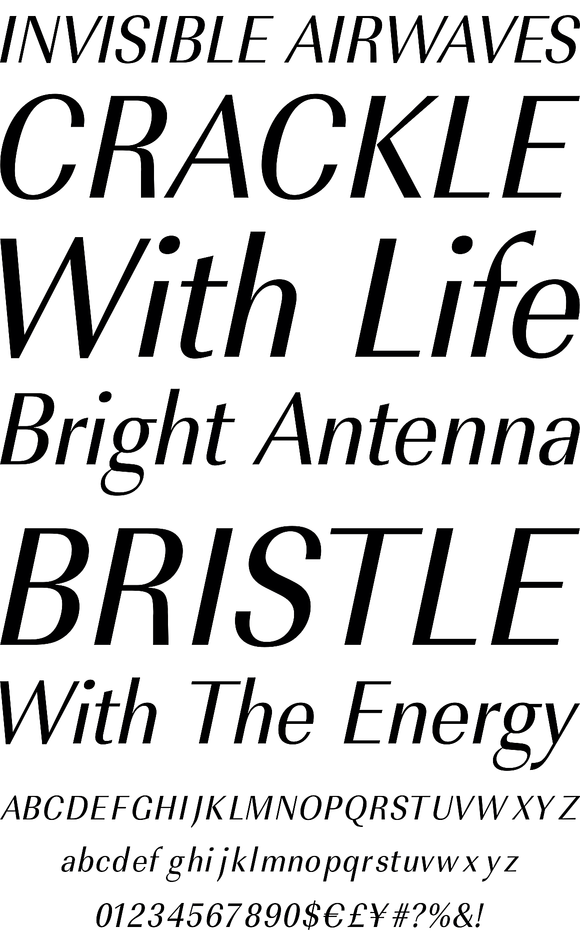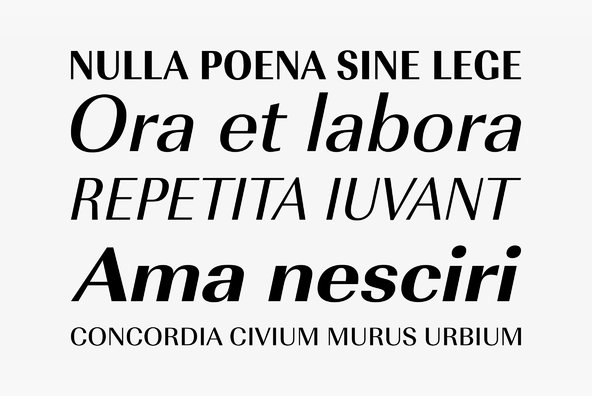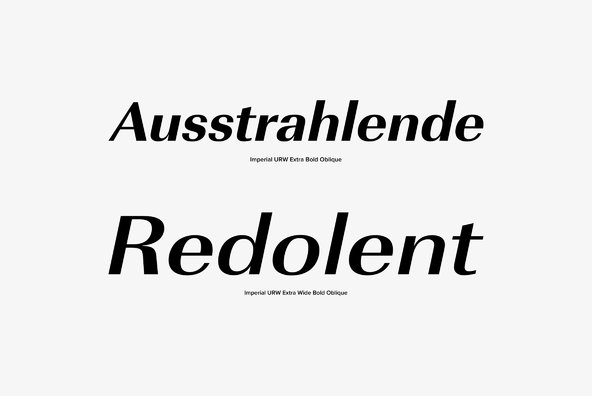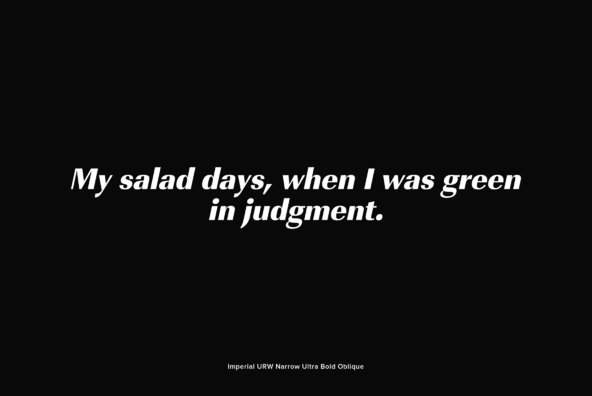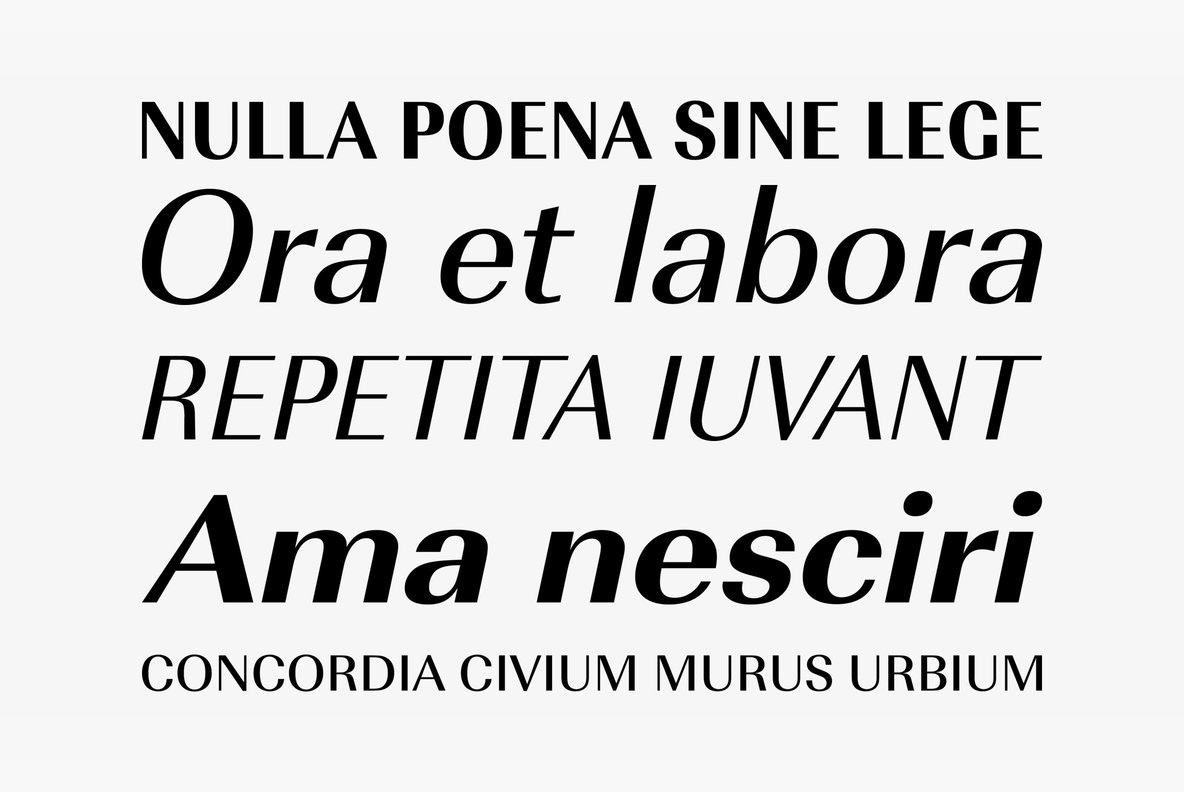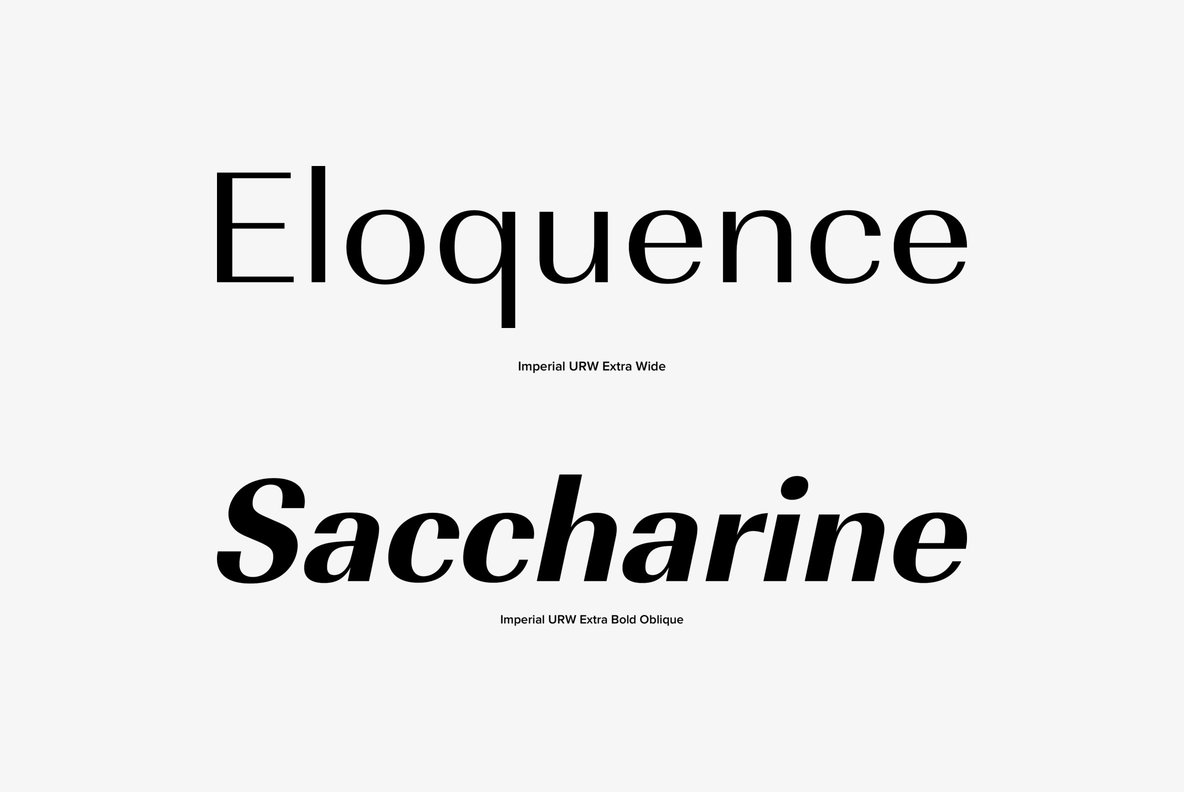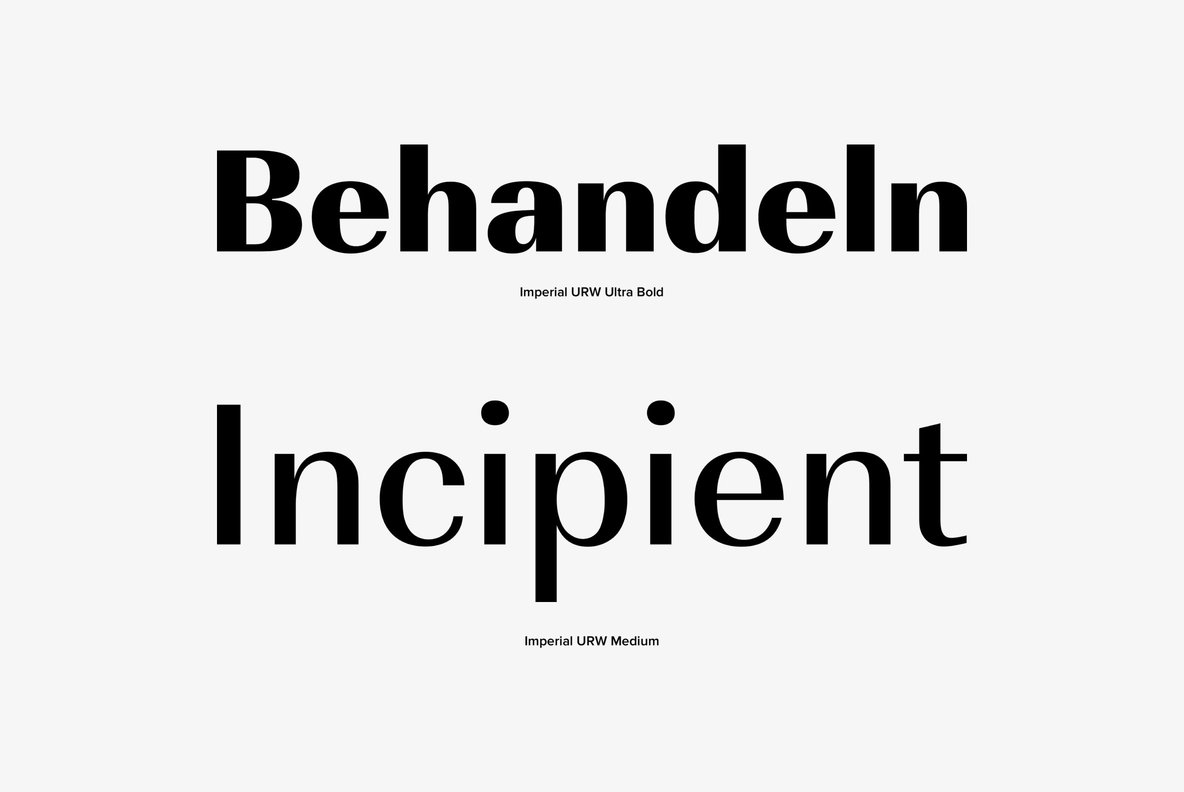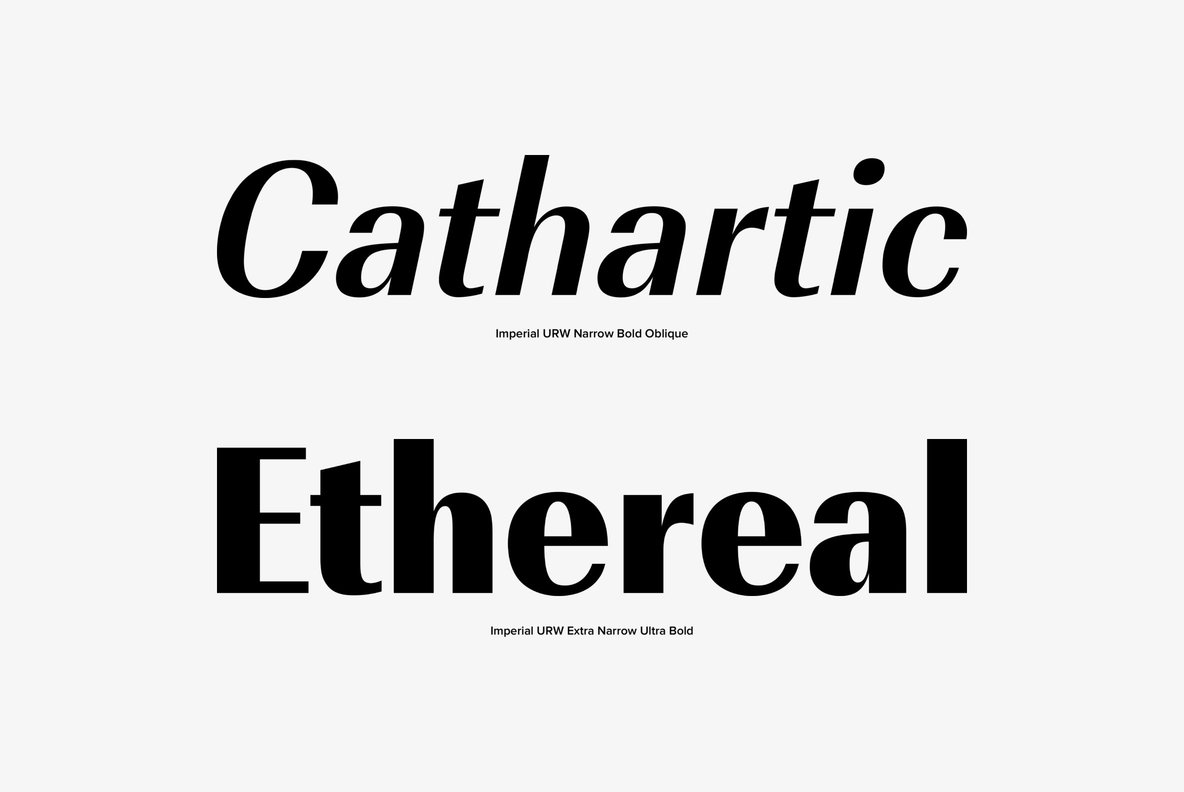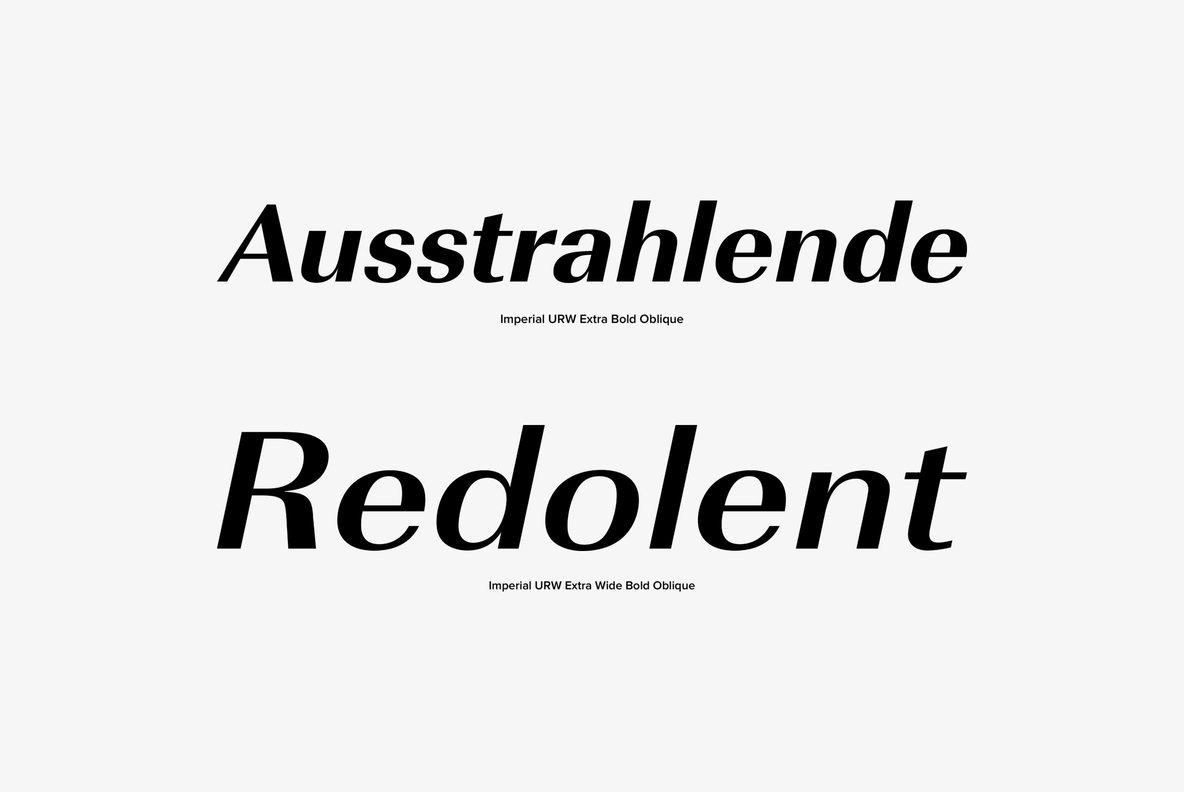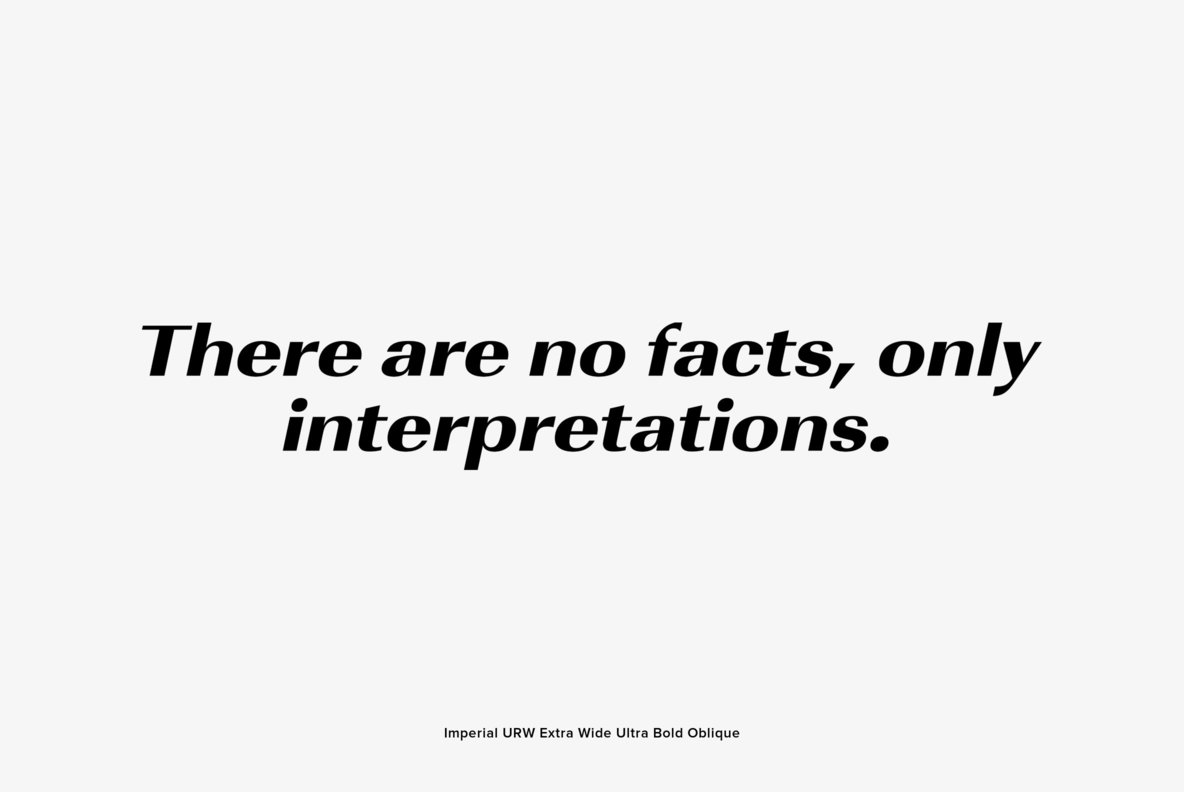
URW Imperial
URW Imperial is a modern and fashionable sans-serif typeface, originally designed by Albert-Jan Pool. URW Imperial contains West, East, Turkish, Baltic, Romanian language support.